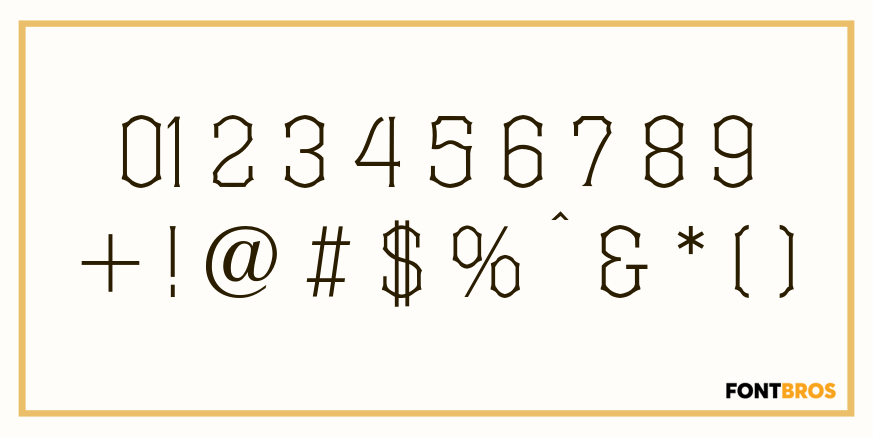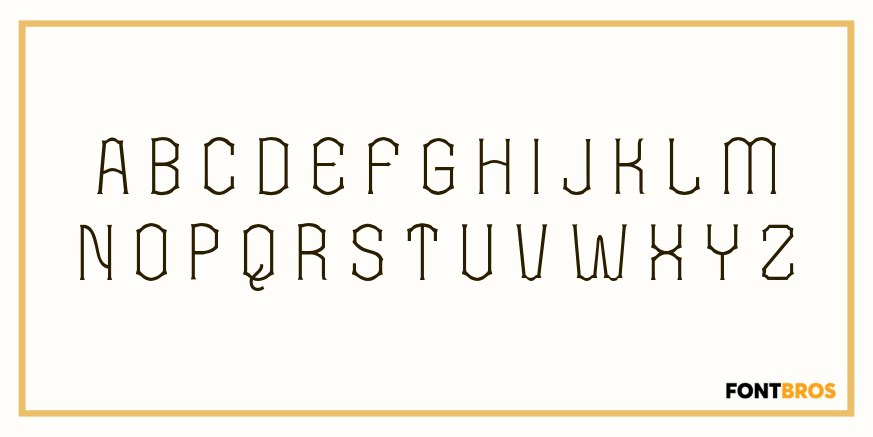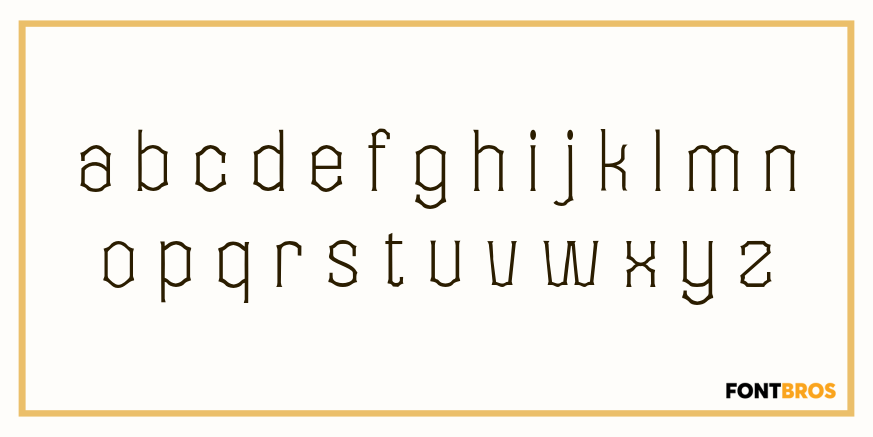
Valerie
Font Family by Solotype
Here is another attempt to create a font for invitation work unlike any already out in the world.
In casting about for a name, I decided to call it Valerie after Valerie Hope, a mindreader of days long gone, who played California theatres in the 1930s and 1940s.
And who, incidentally, was my mother.